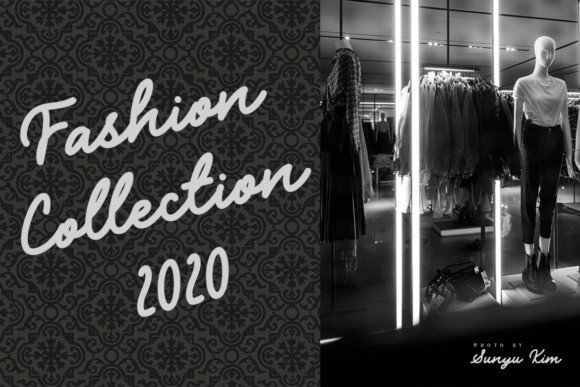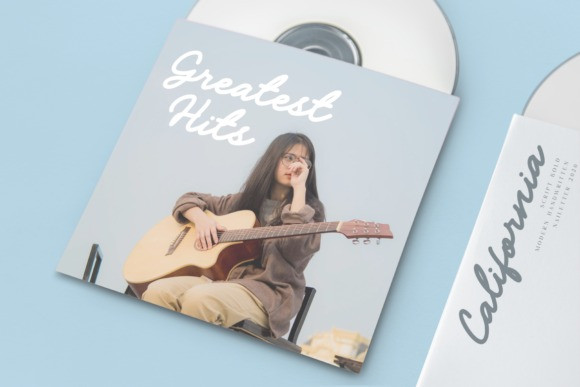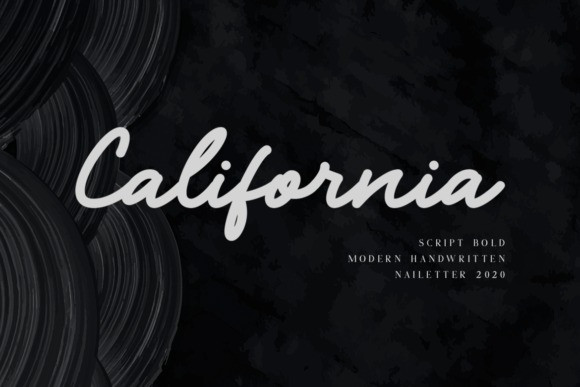
Ellyshalira Font
Ellyshalira Handwritten Font, suitable for any projects such as logos, branding projects, homeware designs, product packaging, mugs, quotes, posters, shopping bags, t-shirts, book covers, name cards, invitation cards, greeting cards, labels, photography, watermark, special events, and all your other luxury projects that need a premium signature taste.